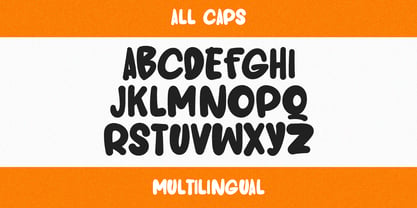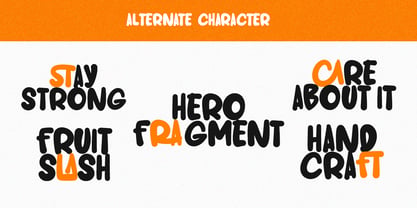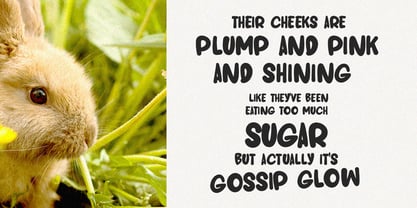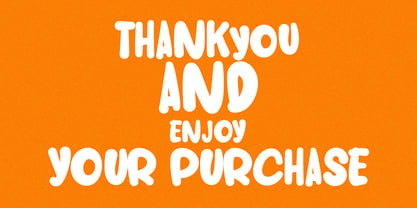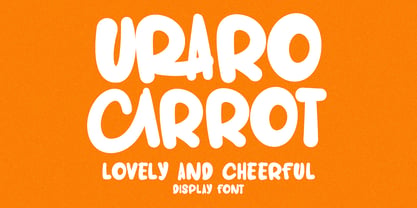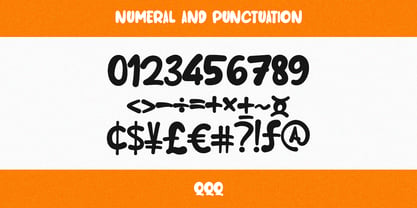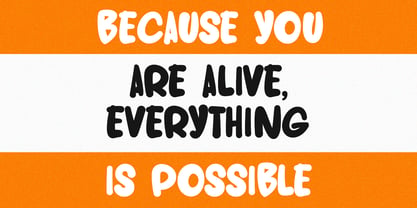
MC Uraro Carrot
by Maulana Creative
The MC Uraro Carrot Font Family was designed by Gilang Maulana and published by Maulana Creative. MC Uraro Carrot contains 1 styles. More about this family
Uraro Carrot is a lovely cheerful display handwritten font. With bold stroke, fun character with a bit of ligatures. To give you an extra creative work. Uraro Carrot font support multilingual more than 100+ language. This font is good for logo design, Social media, Movie Titles, Books Titles, a short text even a long text letter and good for your secondary text font with sans or serif. Make a stunning work with Uraro Carrot font.
Designers: Gilang Maulana
Foundry: Maulana Creative